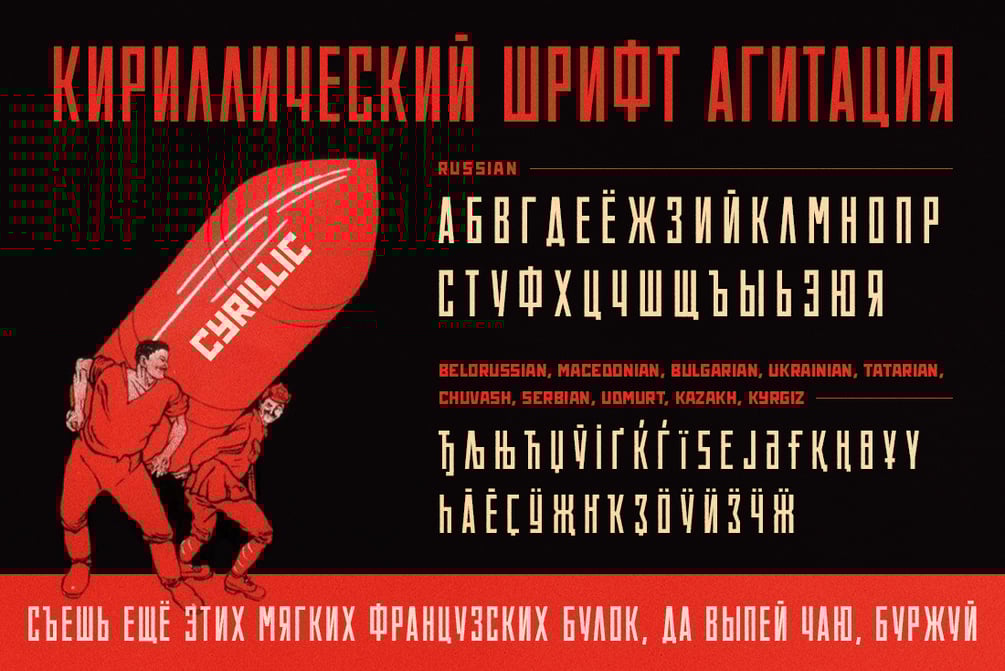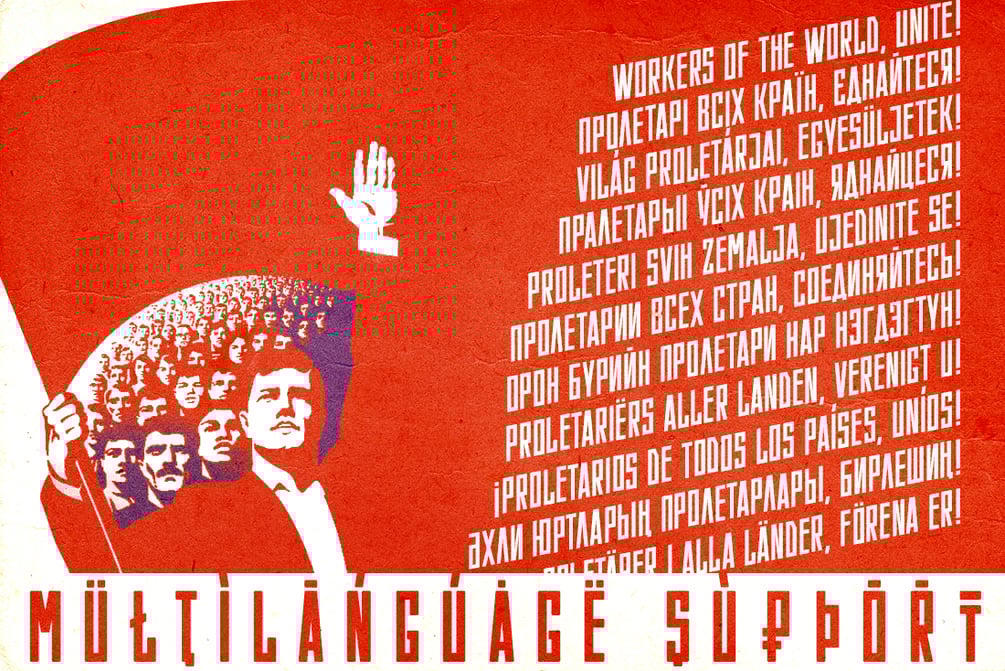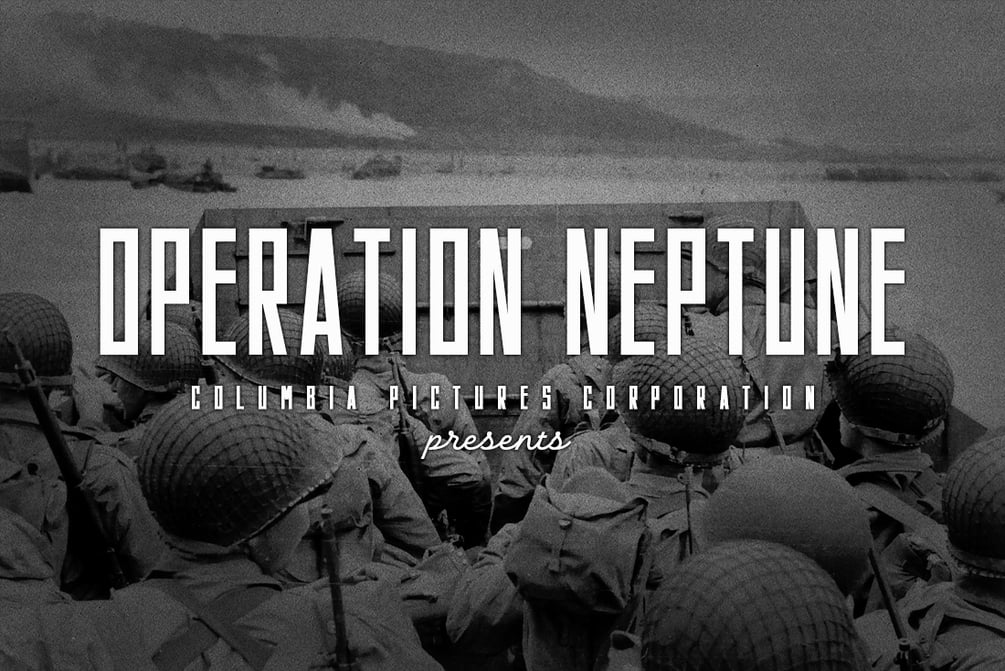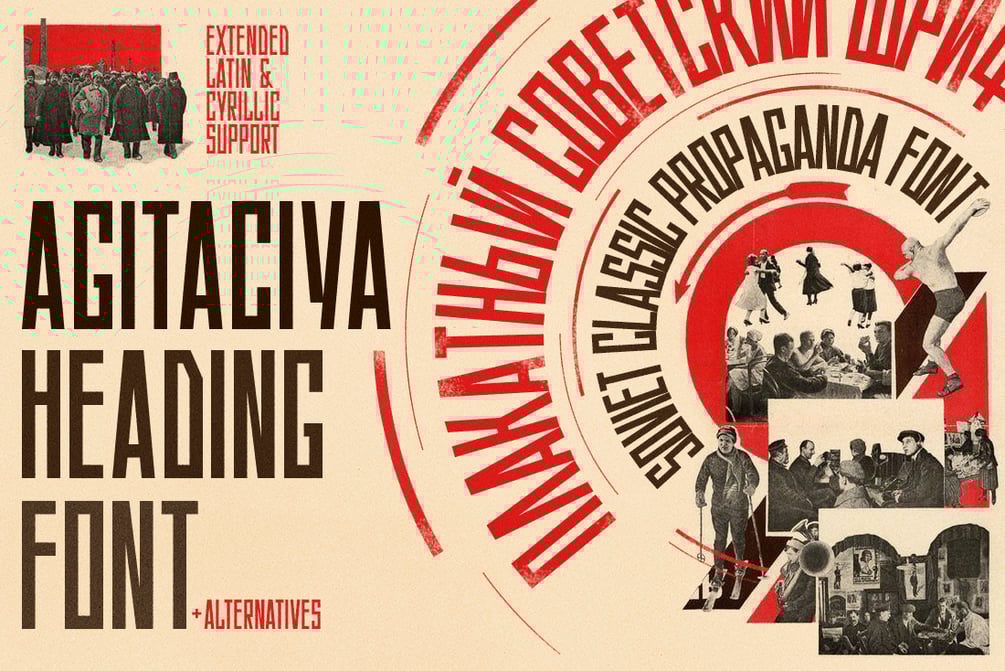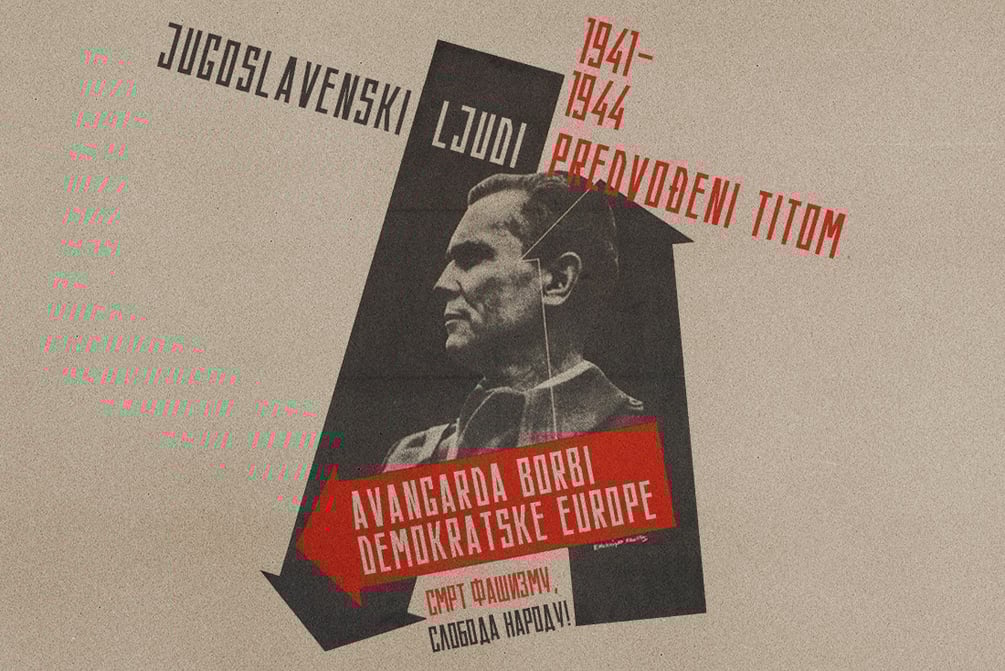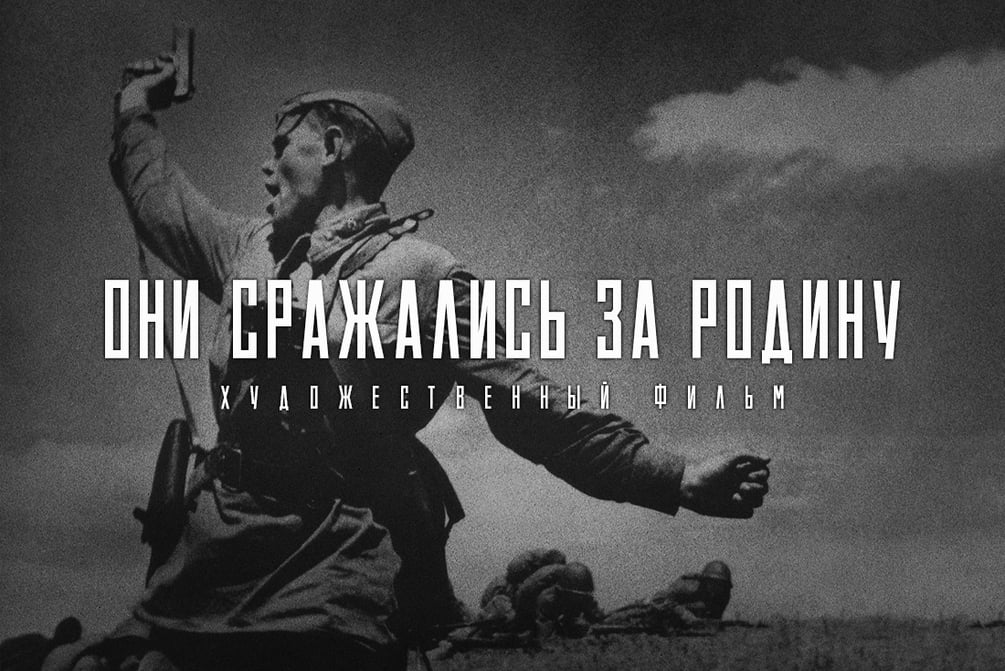
ST-Agitaciya Soviet propaganda font
Introducing a retro narrow grotesque called "Agitaciya" (Agitation). Bring back to the Soviet Era Agitation inspired by Soviet posters, movie titles and book covers. The letterforms are straight and condensed and come in 2 styles: uppercase and small caps alternatives. It has Extended LATIN and Extended CYRILLIC letters. "Agitaciya"created for titles, poster design, web design, branding and packaging works, illustrations, badges and other typography works.